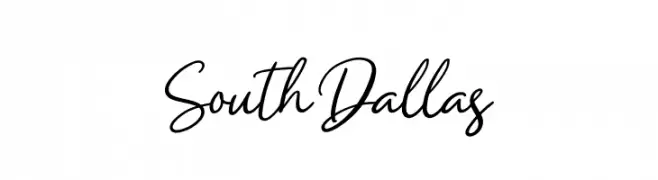
A dynamic and expressive handwritten font with fluid, flowing letterforms.
A cursive, handwritten-style font with elegant, flowing characters.
A bold, expressive script font with a handwritten style.
A fluid, cursive font with elegant, connected characters.
A sophisticated, elegant handwritten font with fluid, connected letterforms.
A playful, casual script font with smooth, flowing lines and a handwritten feel.
A fluid and elegant handwritten font with smooth, flowing lines.
A cursive script font with elegant, flowing letterforms and smooth strokes.
A dynamic handwritten font with fluid, expressive strokes.
An elegant and flowing script font with bold, expressive characters.